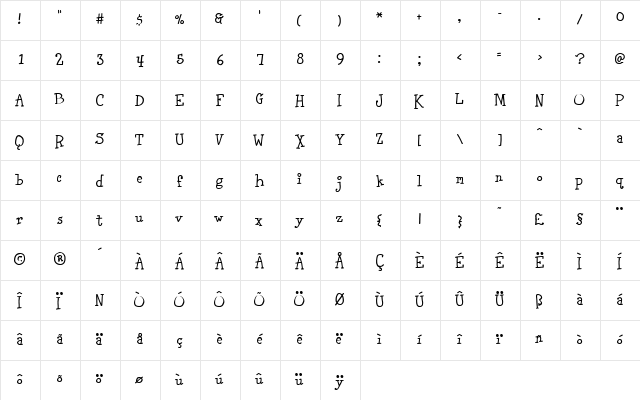
Carnation Medium
Design Context for Carnation Typeface
Carnation takes a measured approach to typography — its balanced proportions and neutral character make it a reliable workhorse for both digital and print work.